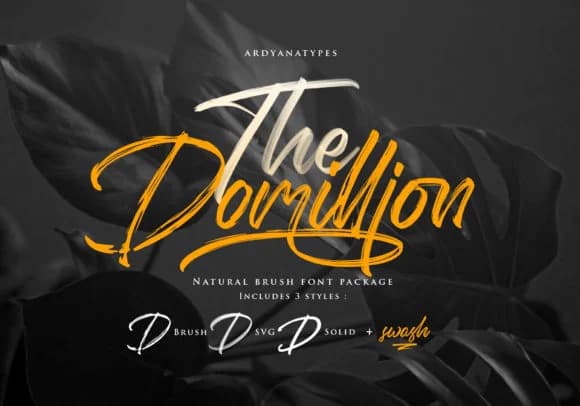
Domillion by ardyanatypes is a contemporary handwritten script with a confident, slightly urban character. The font family arrives in three distinct styles: Clean, Brush, and Swash. That range means you can shift between refined letterforms for formal layouts and more expressive versions when you want motion and texture in your design.
This is a script built to perform across real projects. Wedding invitation suites gain from its legible yet distinctly personal flow, while boutique skincare packaging picks up that handmade quality without sacrificing polish. Event signage reads clearly even in heavy doses, and greeting card designs benefit from the balance between boldness and approachability. The Swash variants deserve particular attention when you need decorative flourishes that expand without tangling the letterforms or making the text hard to read.
- Elegant, Flowing, Domillion Clean
Domillion Font is a script font that shines as a display or heading face. Pair it with a clean sans-serif or serif font for body text — the contrast creates a clear hierarchy while the two styles stay balanced and easy to read.
Domillion Font